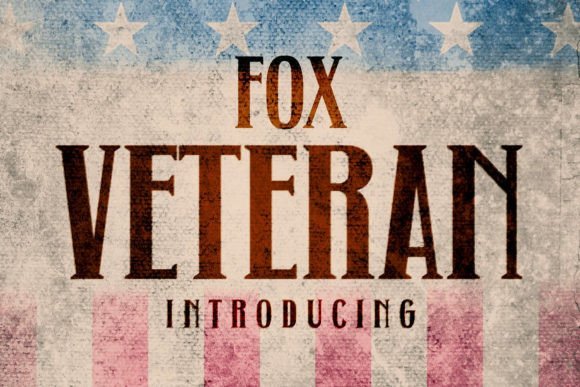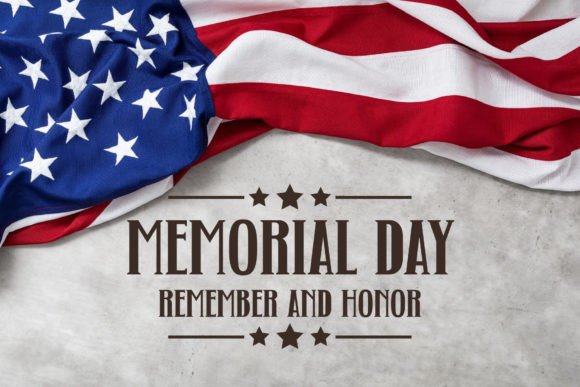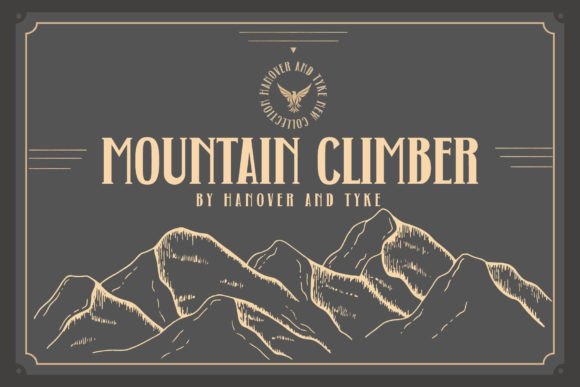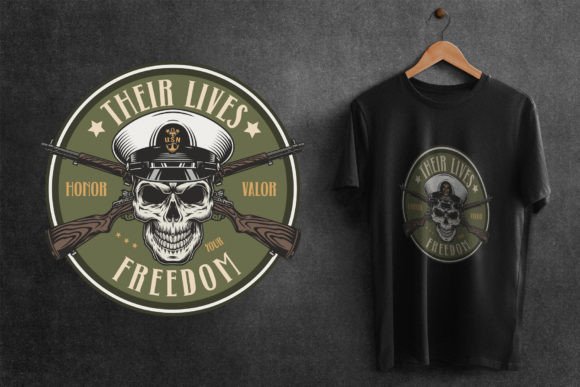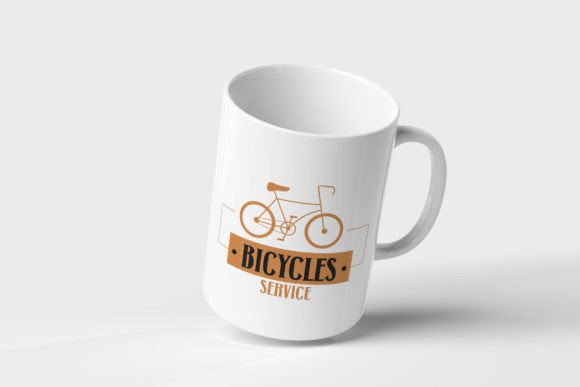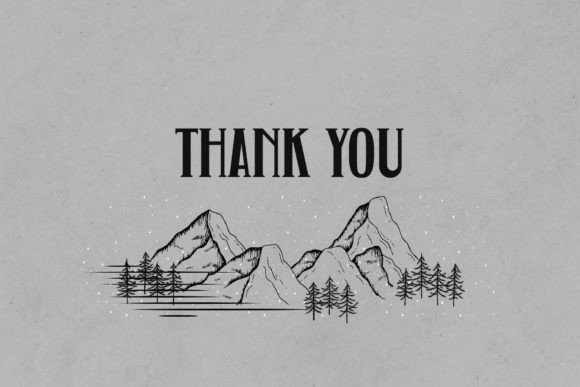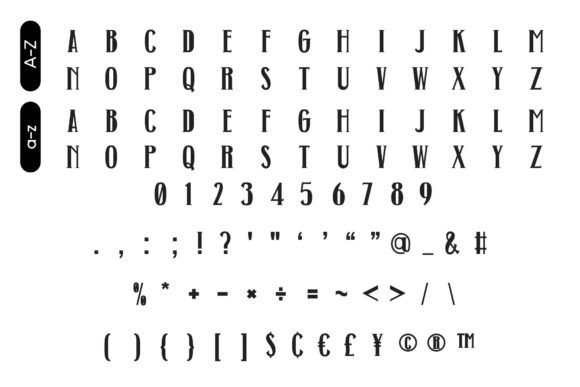
Have you ever been stuck on a design, staring at a blank canvas, and suddenly a spark of inspiration hits you? That’s exactly what happened to me when I discovered the Fox Veteran Font. Its unique blend of vintage charm and modern sophistication had me hooked from the very start.
As a versatile and stylish slab serif font, Fox Veteran is perfect for a wide range of applications, from publications and logos to business cards and printed merchandise. Whether you’re looking to add a touch of nostalgia or a dash of modern flair, this font is sure to elevate your creations and leave a lasting impression.
What makes Fox Veteran Font truly valuable is its ability to transcend topics and styles, making it an incredible asset to any designer’s library. With its timeless appeal and endless possibilities, it’s no wonder that Fox Veteran Font has become a go-to choice for creatives around the world.
Key Features of Fox Veteran Font
- Font Family: Fox Veteran is a serif font, designed to resemble classic, vintage fonts.
- Unique Characteristics: Features a classic, vintage feel with subtle flair and ornate details, adding a touch of elegance to any design.
Review of Fox Veteran Font
Overall, Fox Veteran Font is a solid addition to any designer’s toolkit. The font’s unique blend of vintage and modern elements works well for creating a sense of nostalgia without feeling too dated. ✨ I particularly appreciate the variety of weights and styles available, which makes it easy to customize the font to suit different design projects.
- The font’s bold weights are perfect for creating attention-grabbing headlines and titles.
- The font’s script and italic styles add a touch of elegance and sophistication to any design.
- The font’s clean lines and minimal ornamentation make it easy to read and understand.
However, there are a few limitations to consider. ⚠️ The font’s lowercase letters can sometimes appear a bit too slender, which may affect readability in certain contexts. Additionally, the font may not be the best choice for designs that require a lot of bold, attention-grabbing text.
Overall, I would recommend Fox Veteran Font to designers who are looking for a versatile and stylish font that can add a touch of sophistication to their designs. With a bit of careful consideration and customization, this font can be a great addition to any design project.
Tips for Getting the Most Out of Fox Veteran Font
Use Fox Veteran Font for bold and adventurous designs, such as:
- Outdoor and sports-related graphics
- Wildlife and nature-inspired designs
- Action-packed and energetic graphics
Experiment with different font sizes, colors, and styles to create unique and eye-catching designs.
Alternatives to Fox Veteran Font
Playfair Display is an elegant and luxurious serif font, ideal for formal and high-end designs. It features a classic, sophisticated look with intricate details and ornate flourishes. When to use: Luxury brands, high-end fashion, and elegant invitations.
Comparison to Fox Veteran Font: Playfair Display is more ornate and luxurious, while Fox Veteran Font is more rustic and vintage. Fox Veteran Font has a more rugged feel, whereas Playfair Display is refined and sophisticated.
Great Vibes is a beautiful and elegant script font, perfect for creative and artistic designs. It features a flowing, handwritten feel with a touch of sophistication. When to use: Creative agencies, art galleries, and wedding invitations.
Comparison to Fox Veteran Font: Great Vibes is a script font, whereas Fox Veteran Font is a serif font. Great Vibes has a more fluid and organic feel, whereas Fox Veteran Font is more structured and formal.